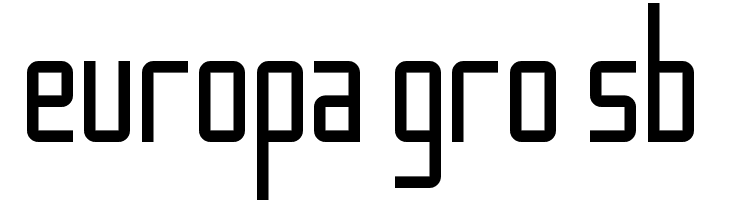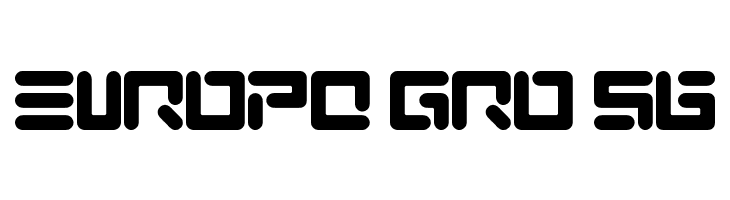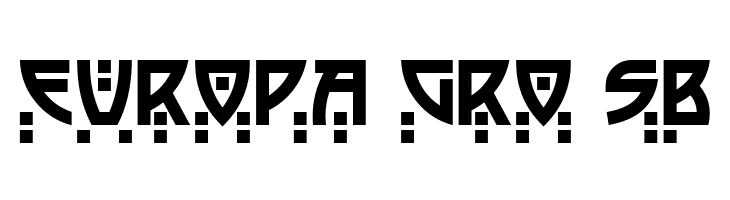
A bold, italicized font with a modern, geometric design and consistent stroke width.
A bold, angular font with a runic, italicized style.
A bold, blocky font with geometric shapes and tight spacing, perfect for impactful headlines.
A modern, angular font with geometric shapes and sharp lines.
A bold, distressed font with a rugged, grunge aesthetic.
A modern, geometric font with angular, technical design.
A futuristic, geometric font with bold, rounded shapes and a digital aesthetic.
A bold, geometric font with square and angular elements, featuring decorative square dots.
A playful, tab-enclosed font with bold, rounded characters.
A bold, geometric font with an embossed, three-dimensional effect for impactful headlines.